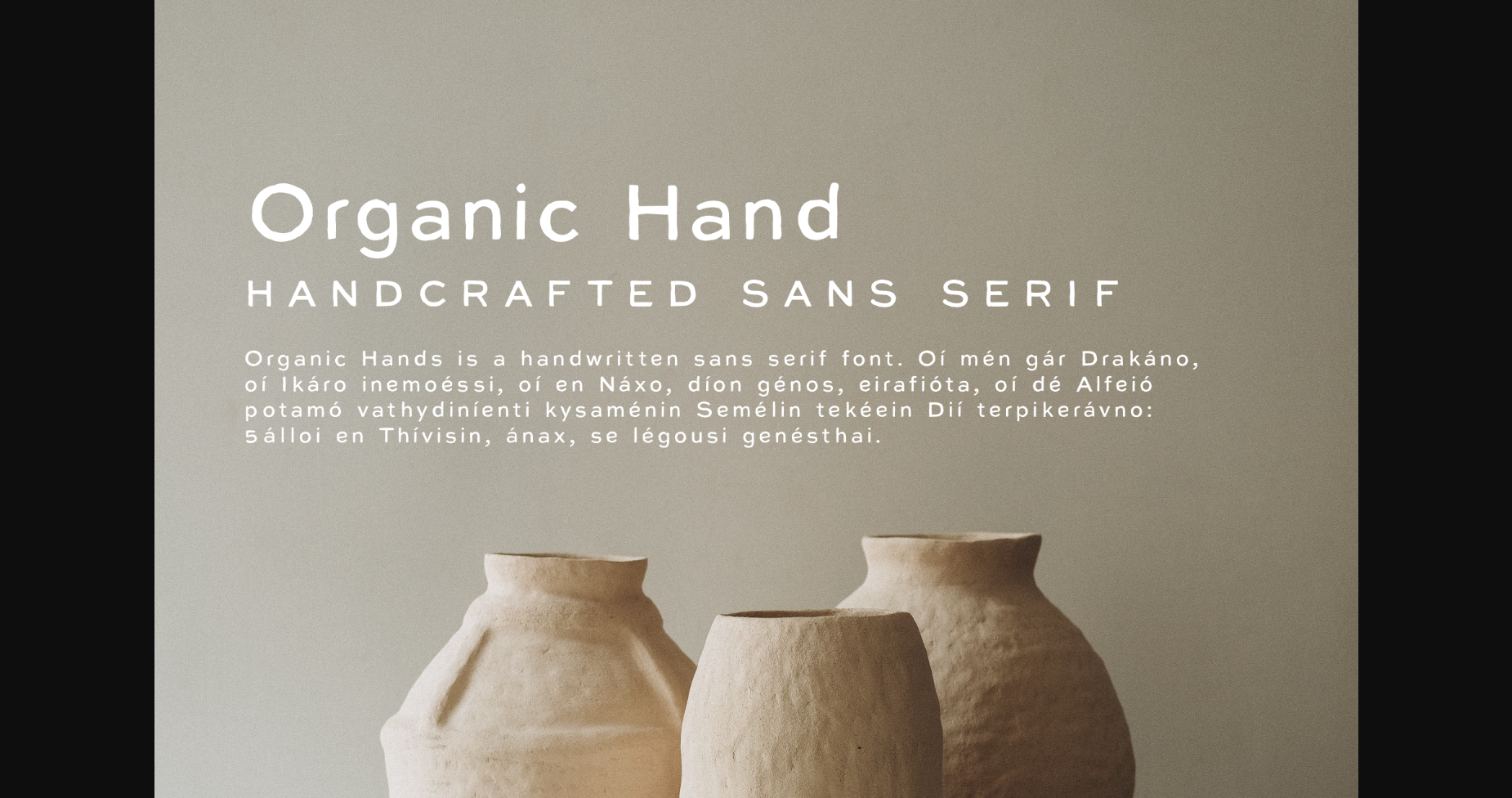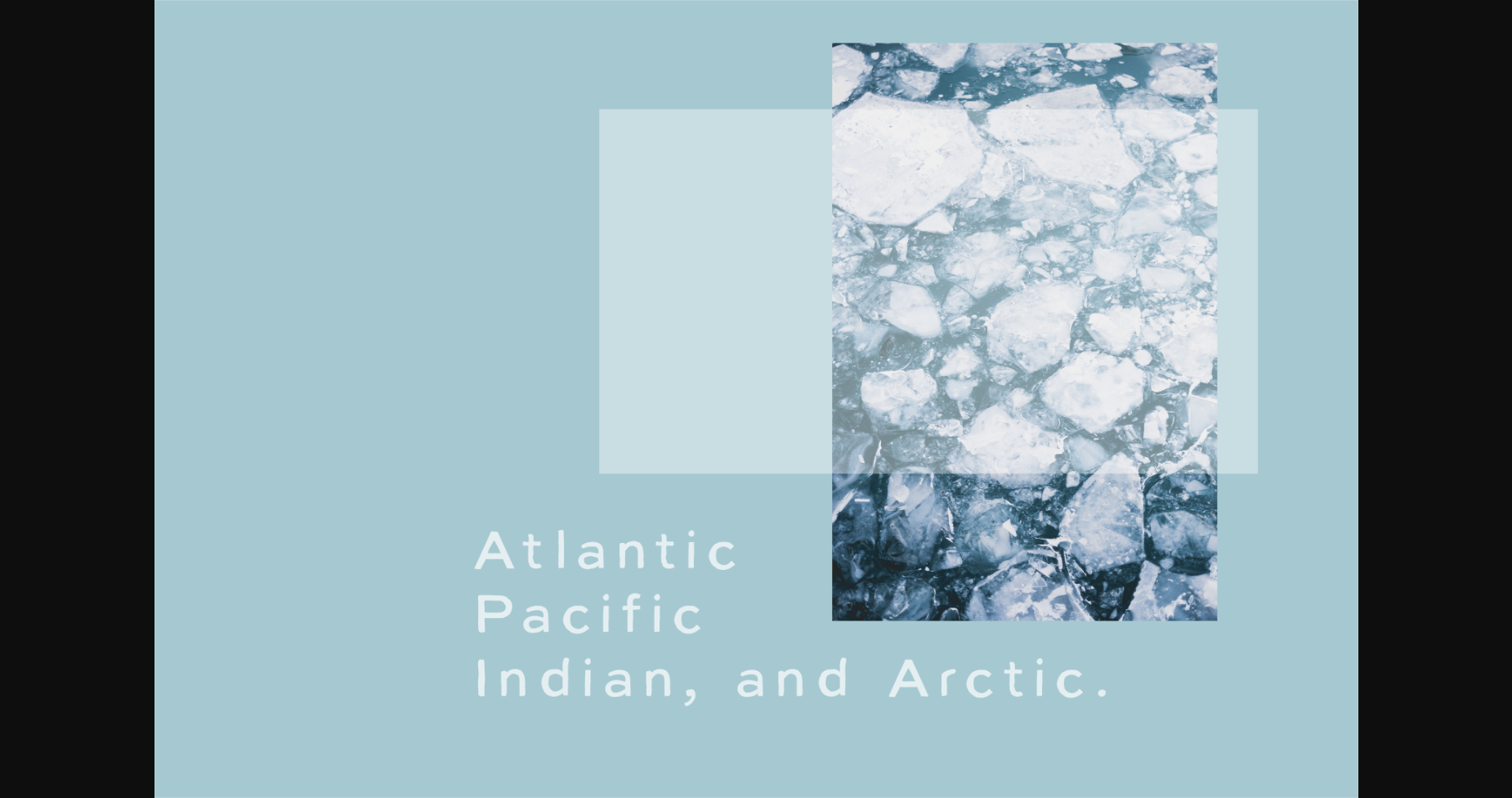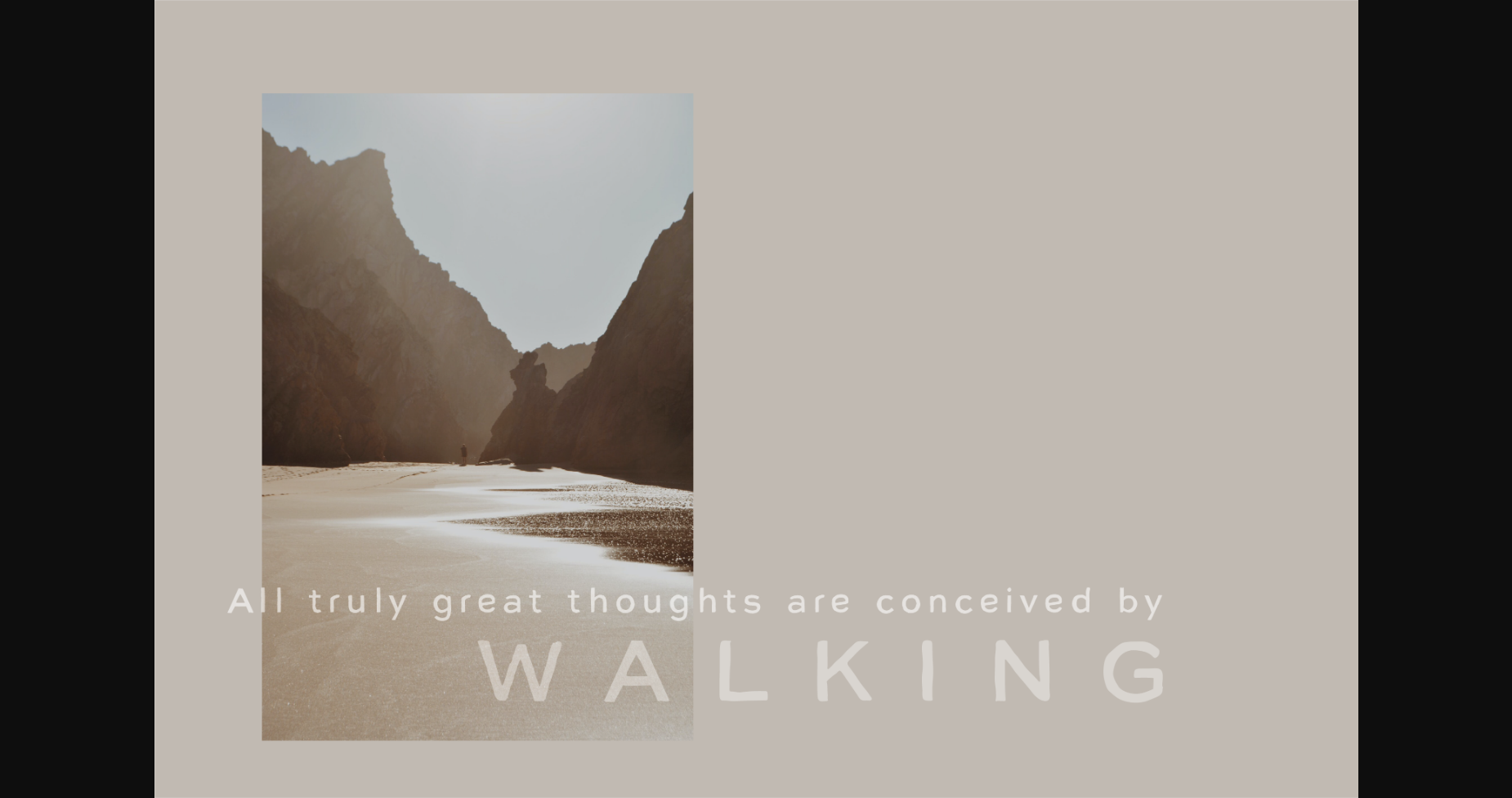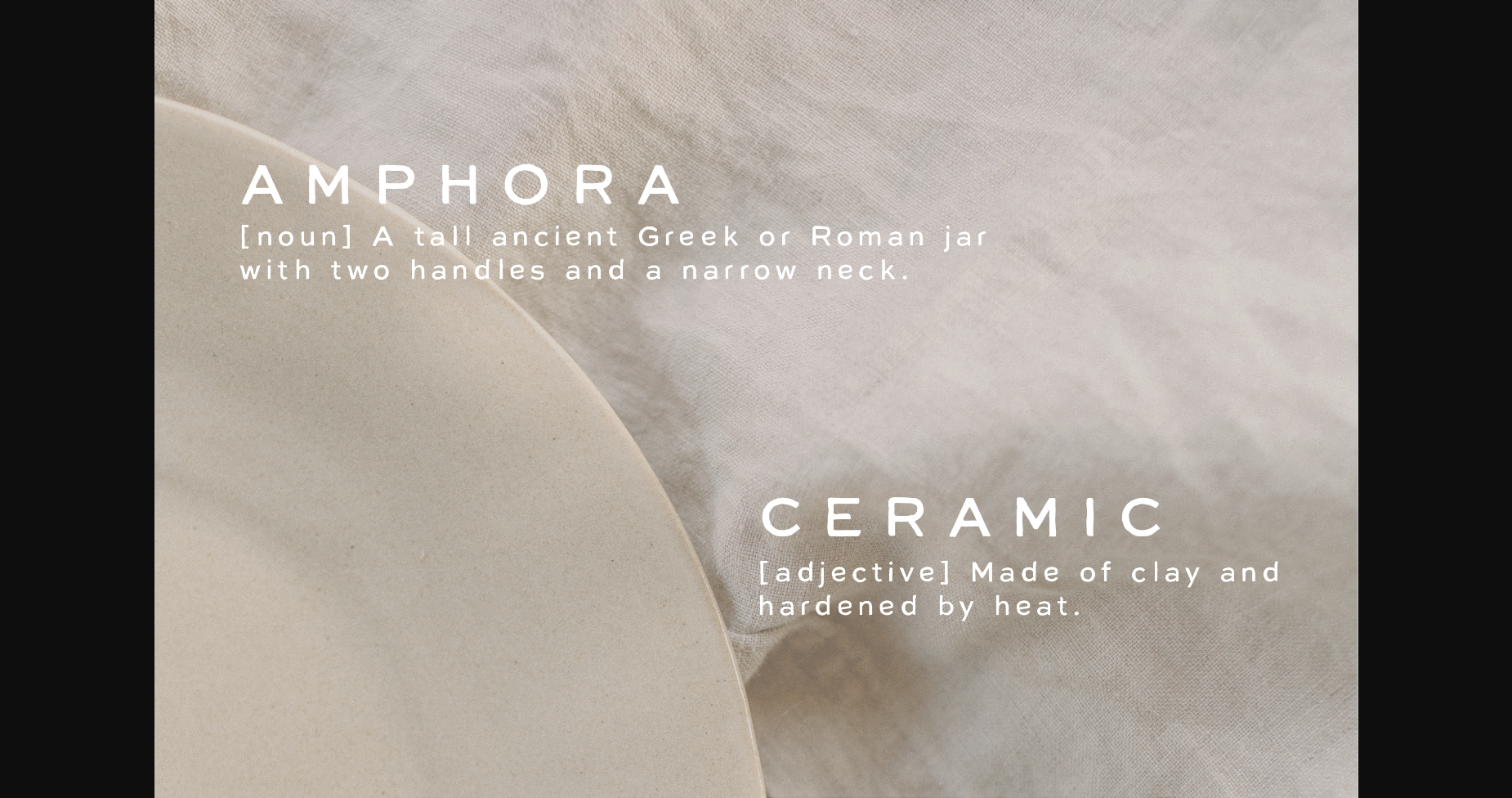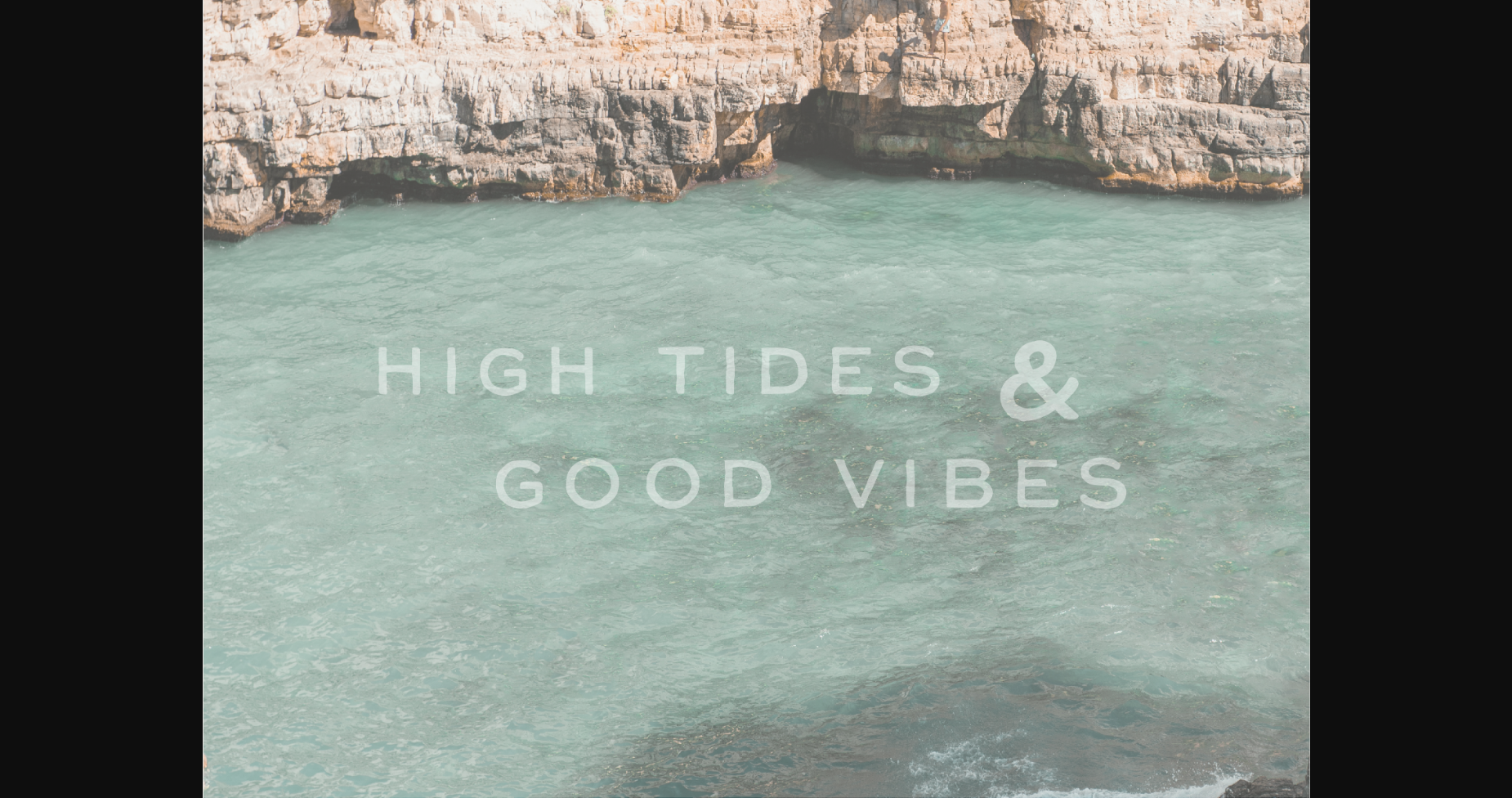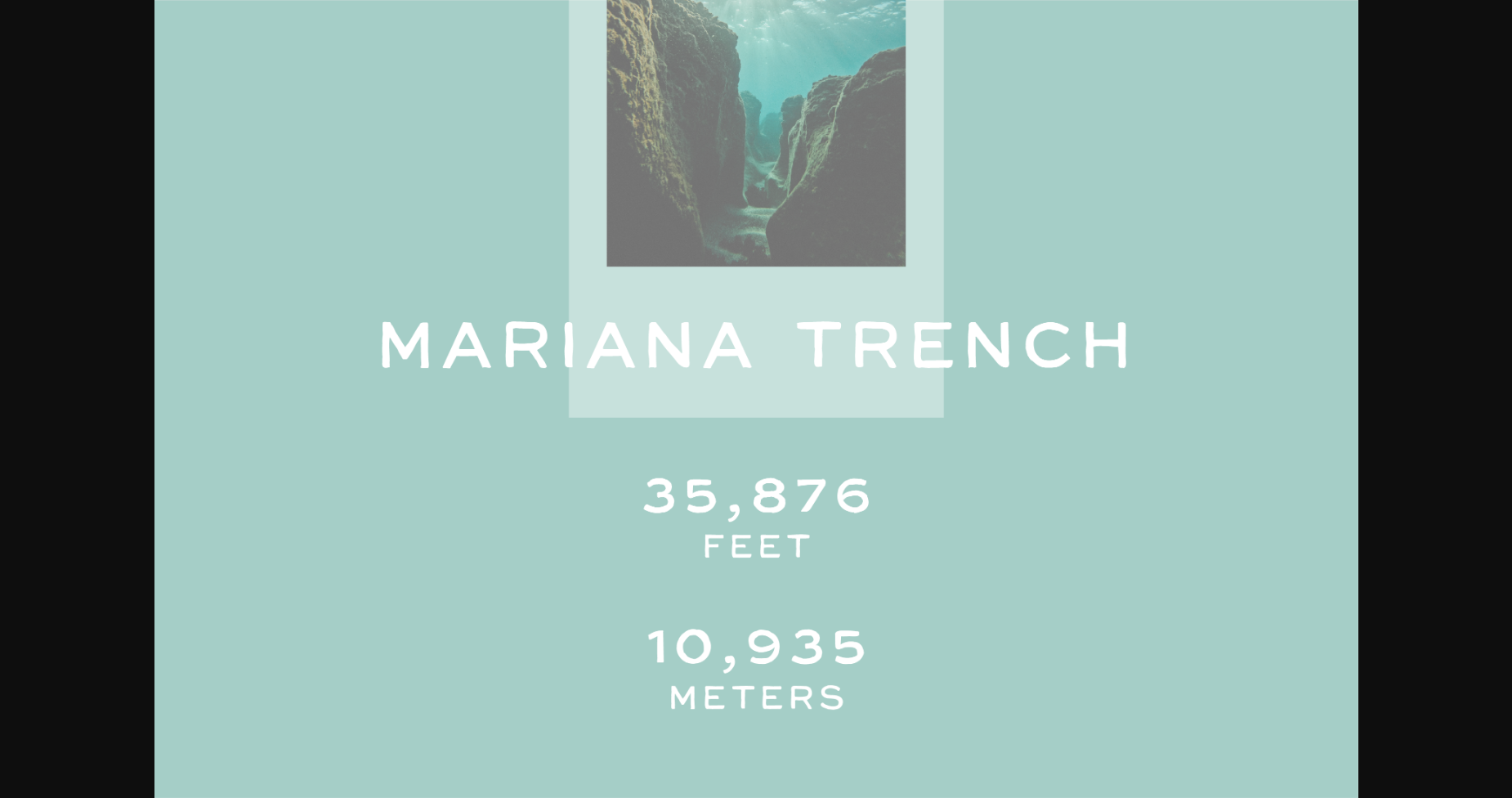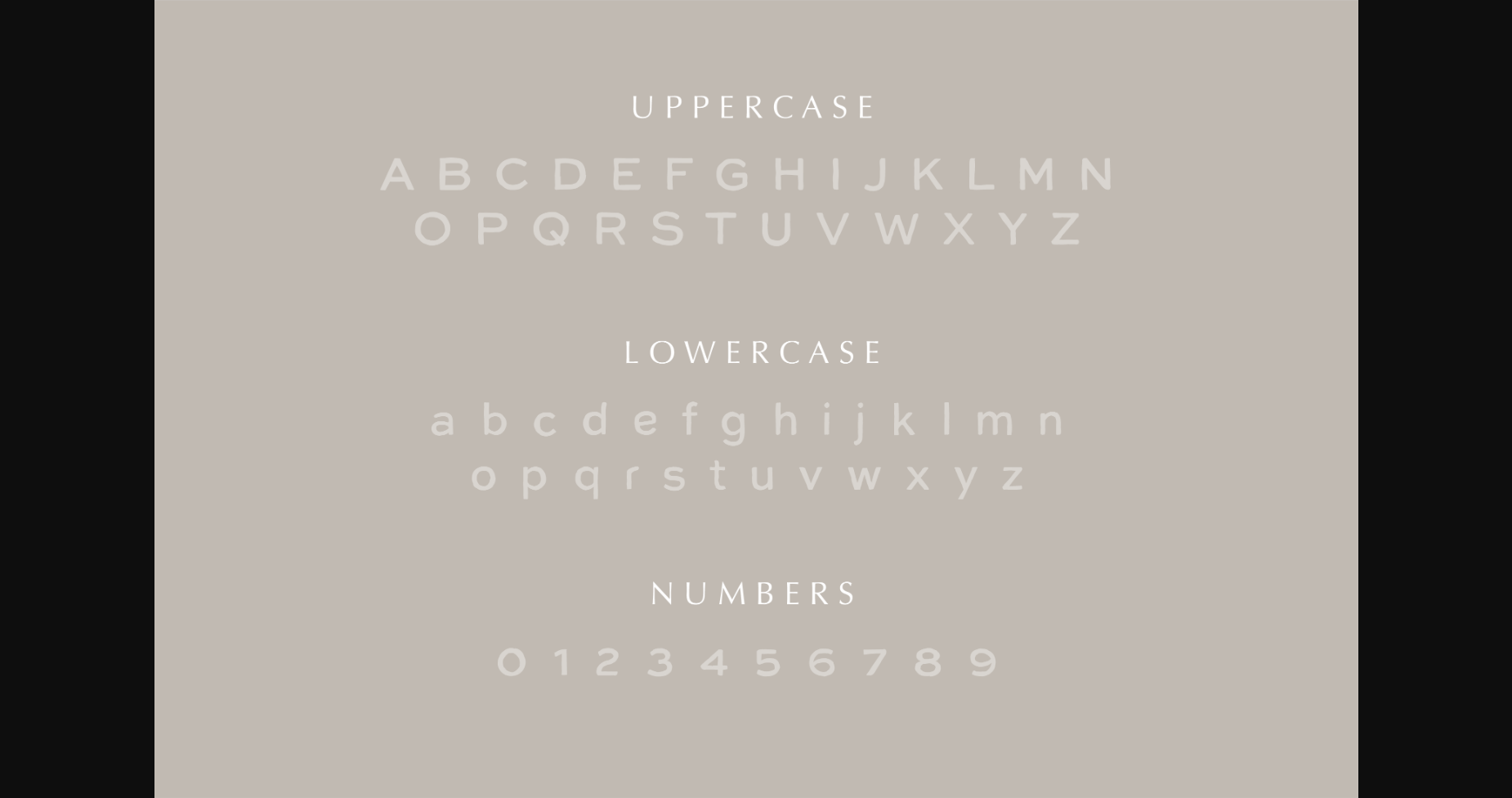
Organic Hand Font
About Organic Hand Font
Organic Hand is a stylish handcrafted sans-serif font. It has a sans serif’s clean minimalism and a handmade font’s originality. Ideal for branding, social media, invitations, and more and great for any boho design.